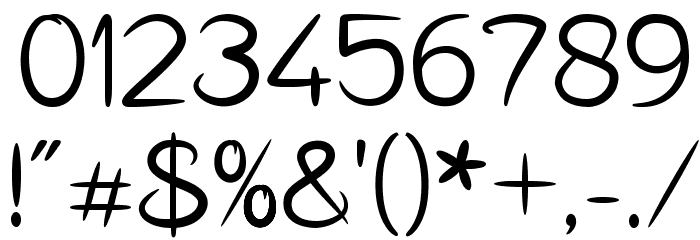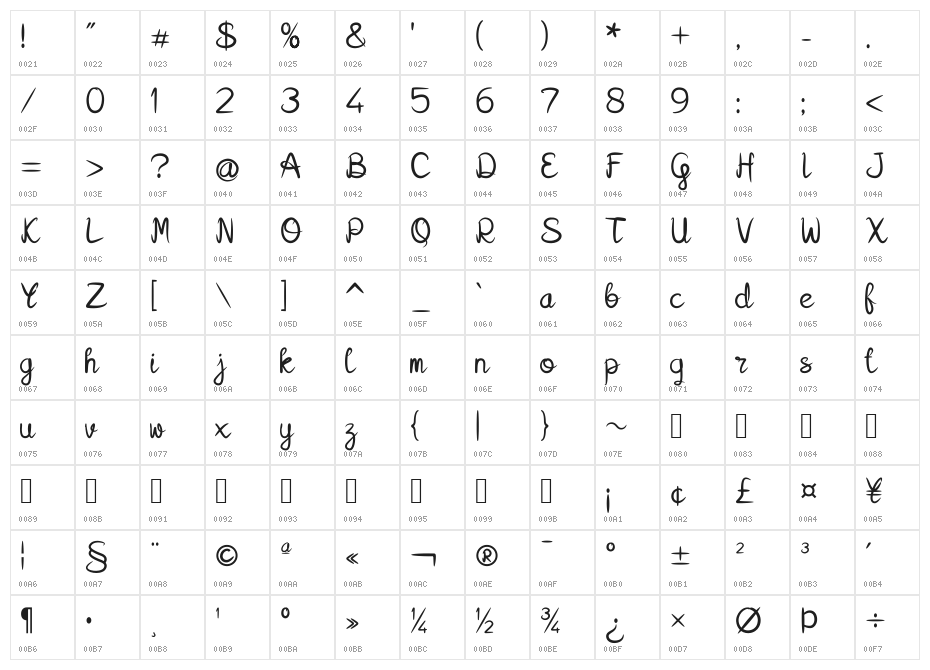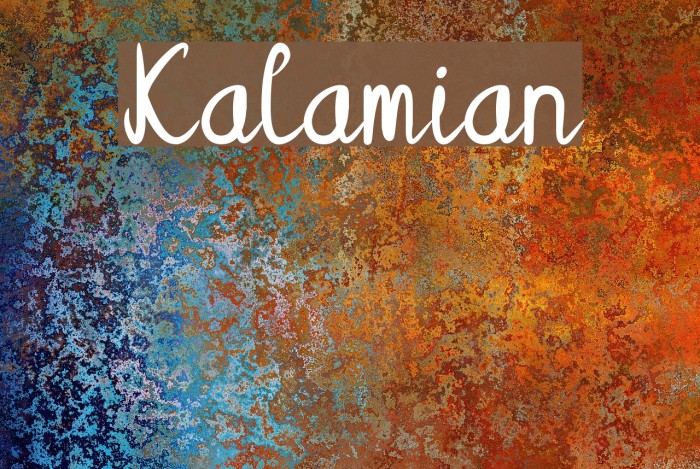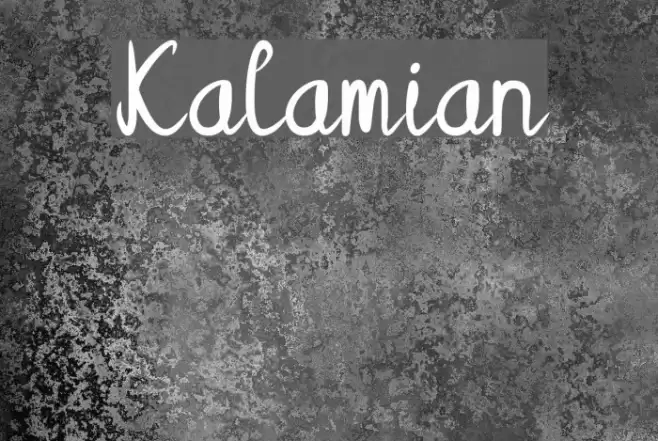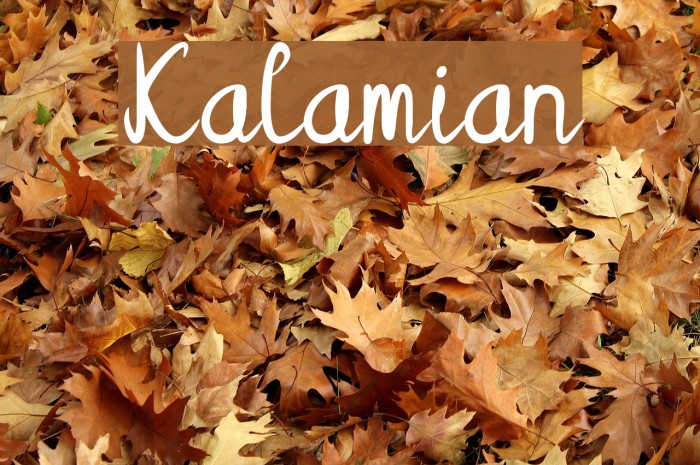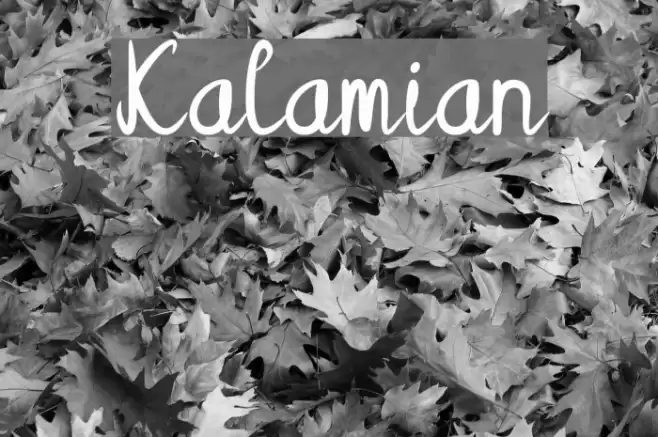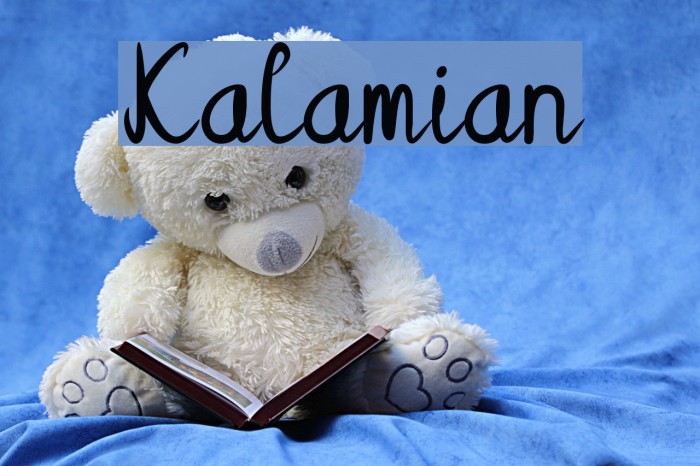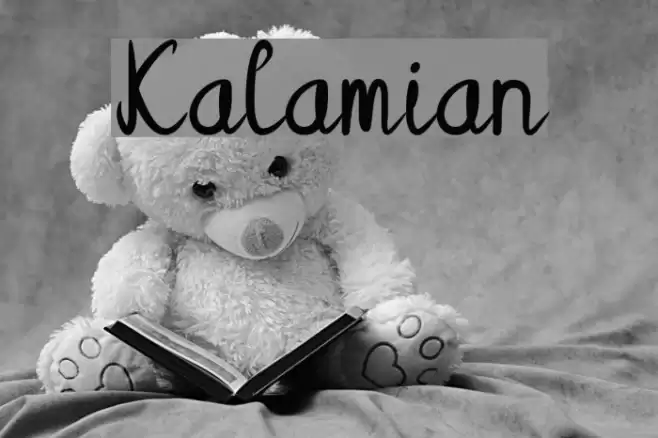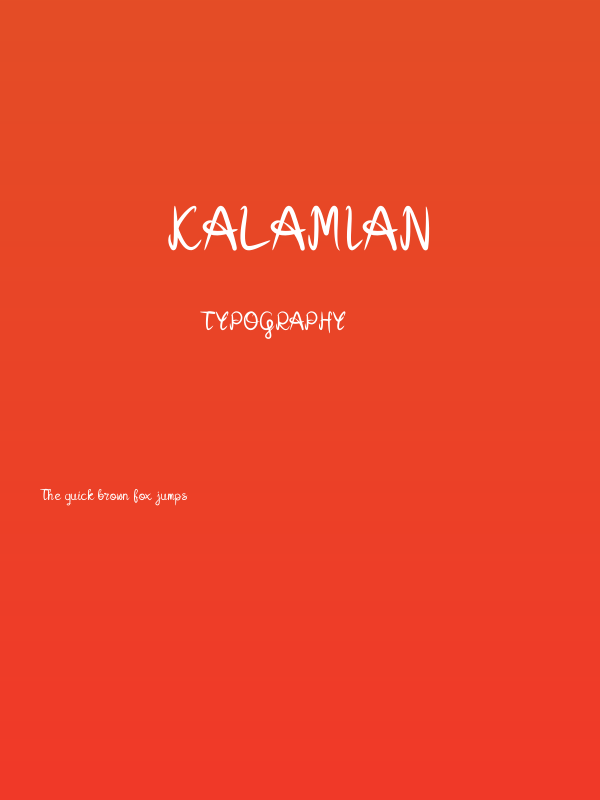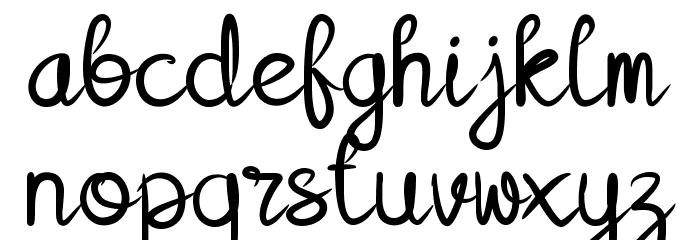
Kalamian Font
Kalamian Description
This font features a playful and casual handwritten style, characterized by its smooth, flowing curves and slightly irregular letterforms. The uppercase letters are bold and expressive, with unique flourishes that add a touch of whimsy. The lowercase letters maintain a consistent style, with rounded edges and a friendly appearance. The numerals are clear and legible, matching the overall aesthetic of the font. Special characters are creatively designed, maintaining the playful nature of the font. This font is ideal for projects that require a personal touch, such as invitations, greeting cards, or creative branding.